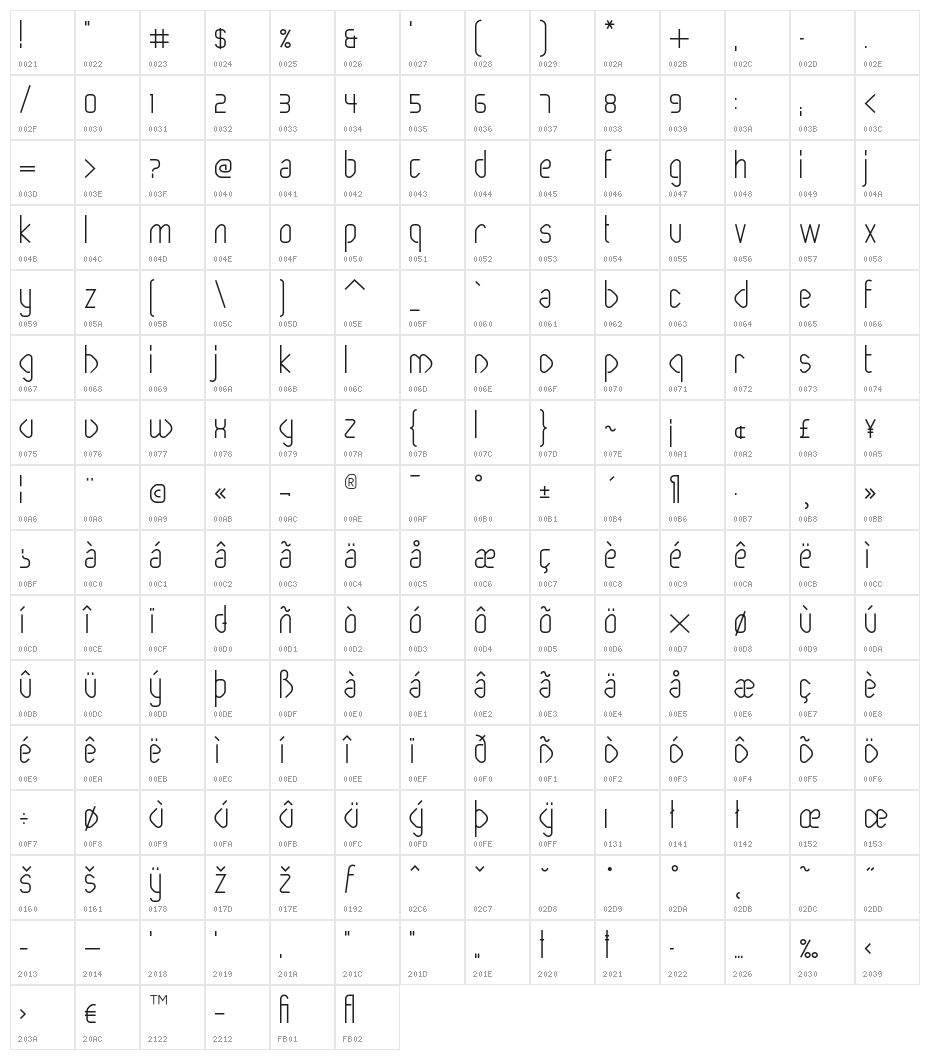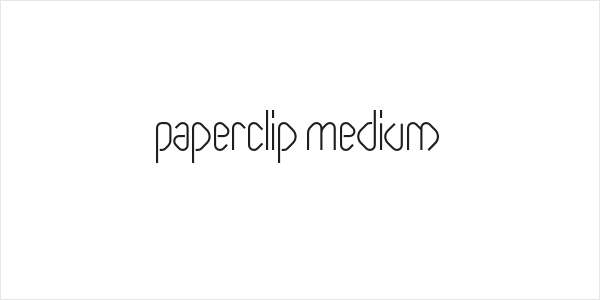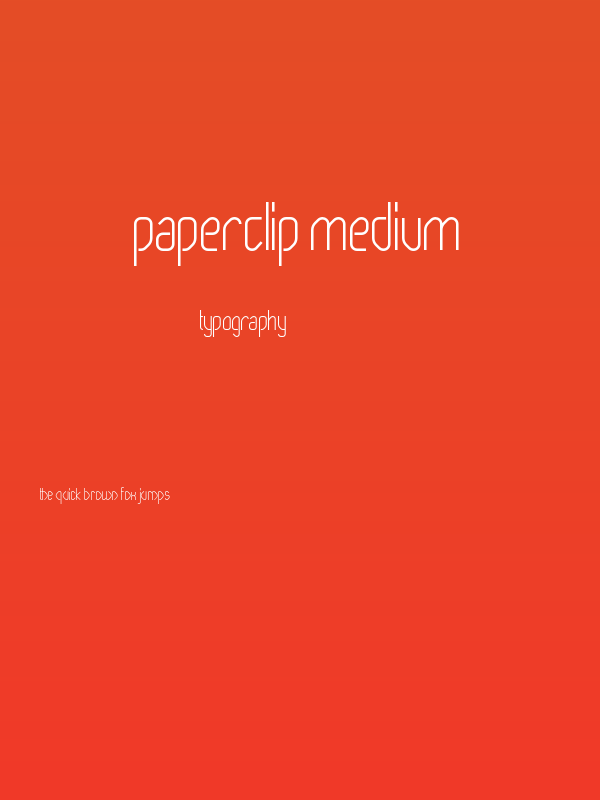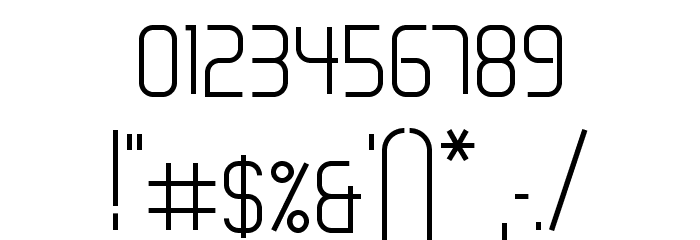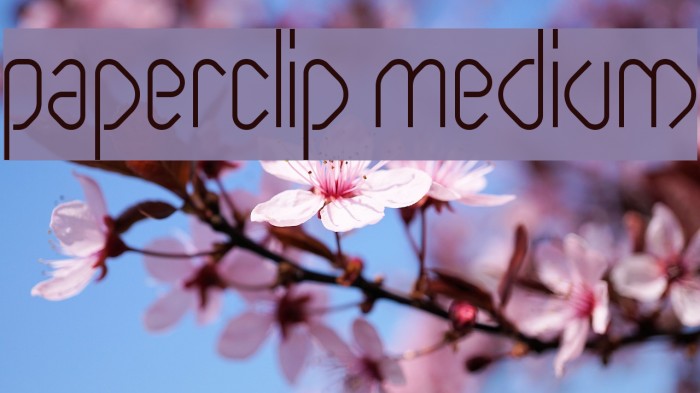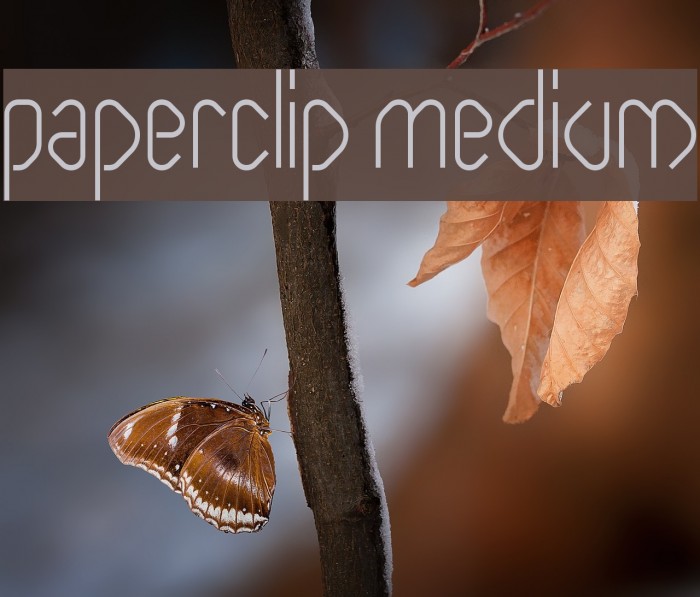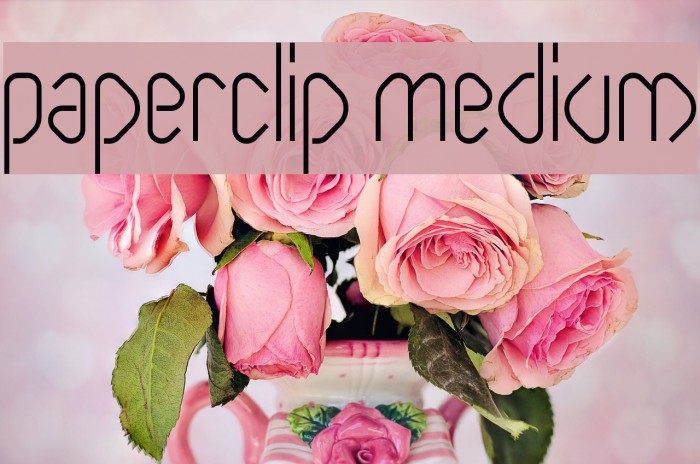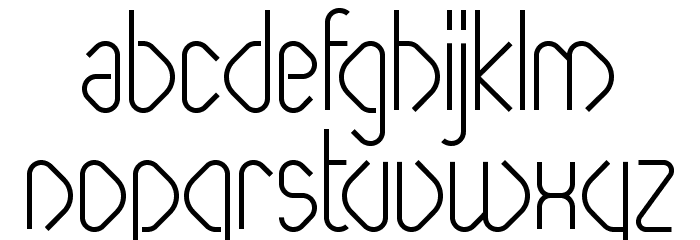
Paperclip Medium Font
Paperclip Medium Description
This font features a unique, modern design with a geometric and minimalist aesthetic. The characters are composed of continuous, smooth lines that resemble the shape of a paperclip, giving it a distinctive and playful appearance. The uppercase and lowercase letters maintain a consistent style, with rounded edges and a uniform line thickness. The numbers and special characters follow the same design principles, ensuring a cohesive look across all elements. The font's clean and open structure makes it highly legible, while its quirky style adds a touch of creativity and fun.
| Use Case | Logos, Headlines, Posters |
| Proposed Projects | Ideal for creative branding, modern posters, tech-related designs, and playful packaging. |